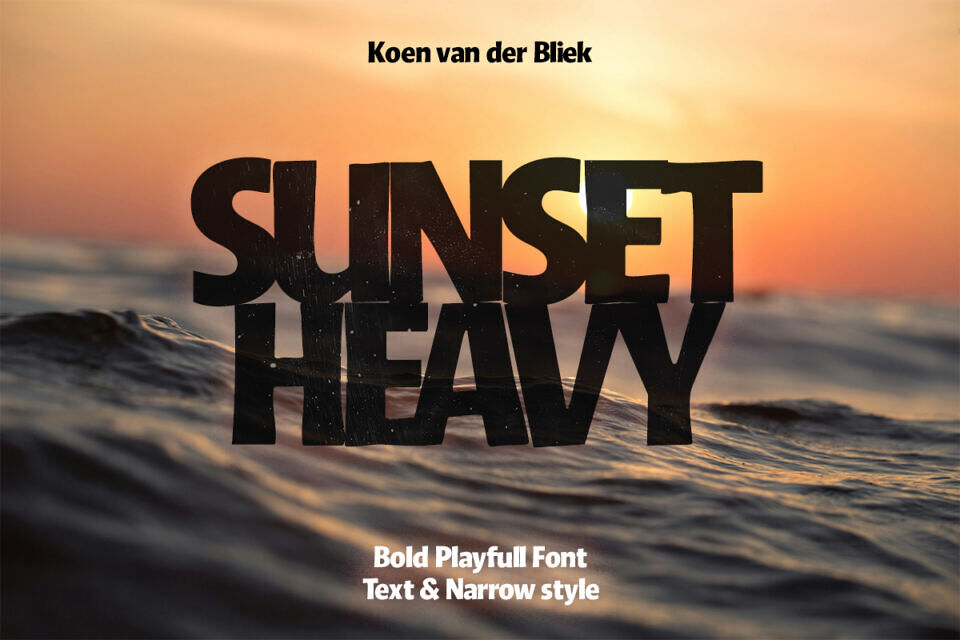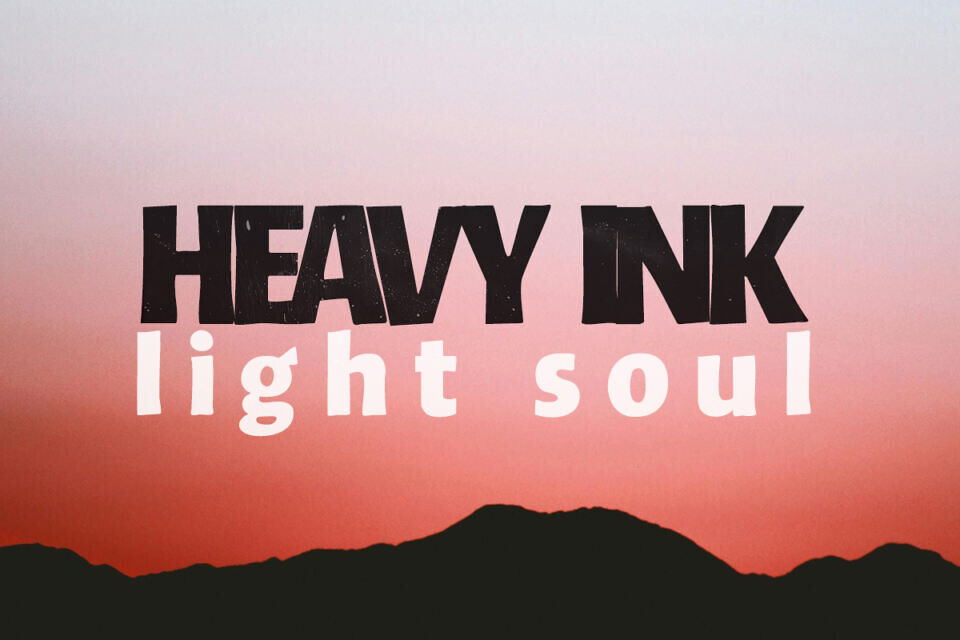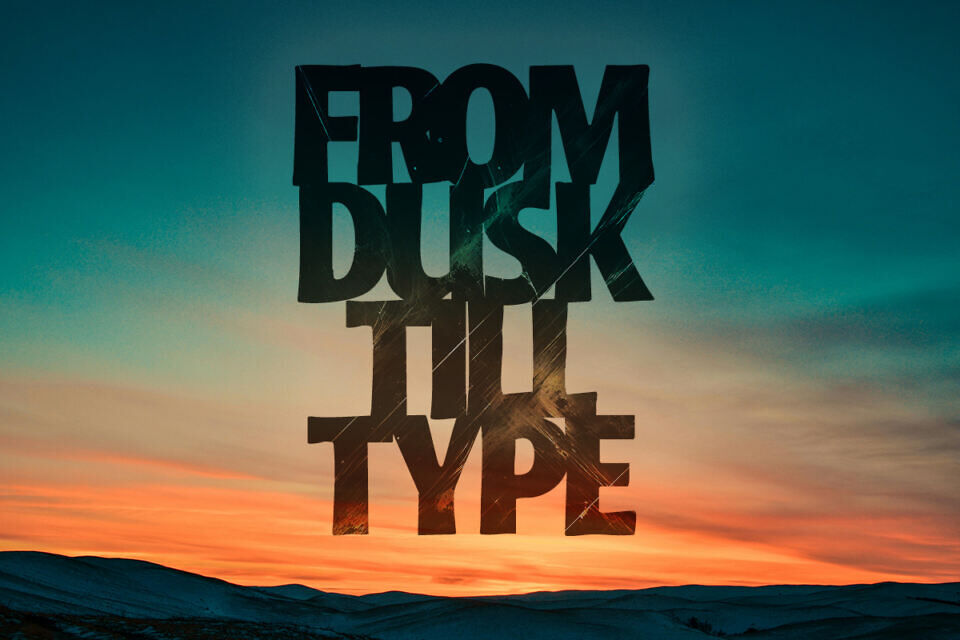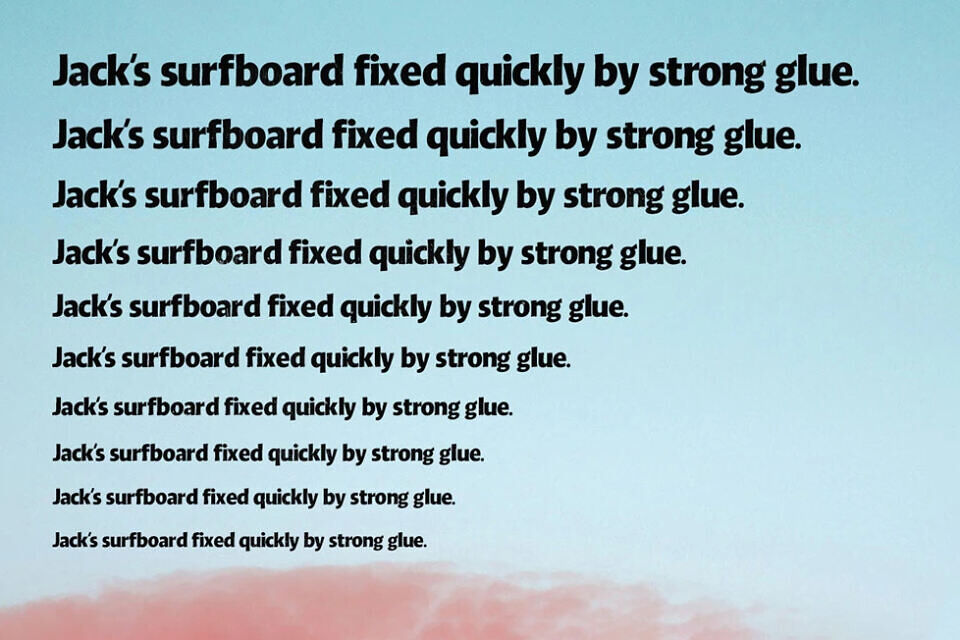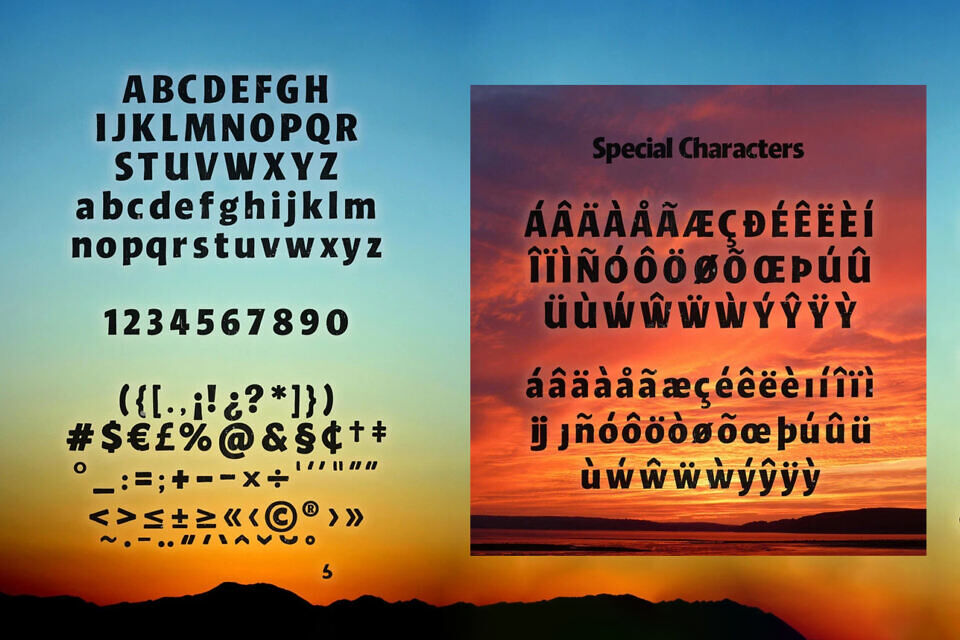
Introducing Sunset Heavy font by Koen van der Bliek. The letterforms are solidly grounded, with thick stems, short extenders, and subtly rounded corners that give the typeface a warm and welcoming feel.
Despite its weight, the font remains surprisingly readable—even in longer lines or at smaller sizes. It feels vintage yet modern, analog in soul but fully at home in the digital world.